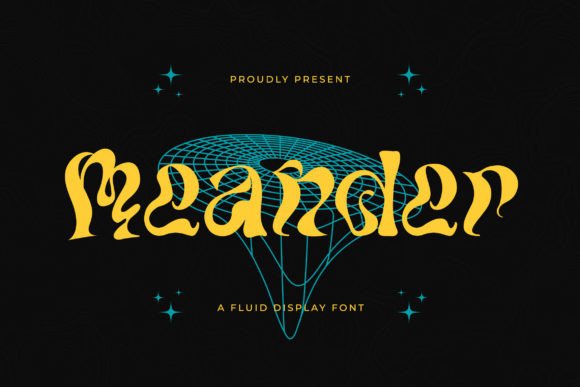
Behold Meander Font, a Liquid Masterpiece Unveiled!
Prepare to be mesmerized by Meander Font, a display font of unrivaled fluidity and charm. This stunning creation by TypeFactory captures the essence of casual elegance, presenting a font that is both down-to-earth and remarkably versatile. With its effortlessly readable characters, Meander Font becomes the star of any context, whether it graces busy backgrounds or stands alone as a captivating headline.
Unleash the Creative Potential Within: Meander Font's Allure
Meander Font is more than just a font; it's an open invitation to unleash your creative genius. Its casual yet sophisticated style empowers you to craft designs that resonate with audiences, leaving a lasting impression. Imagine the possibilities as you weave Meander Font's graceful strokes into your projects, transforming them into visual masterpieces.
A Font Symphony for Every Canvas: Meander Font's Adaptability
Meander Font's versatility knows no bounds. Its inherent adaptability makes it the perfect choice for a myriad of design applications. From captivating posters that demand attention to elegant branding materials that exude professionalism, Meander Font seamlessly blends with your vision. Whether you're crafting digital masterpieces or tangible printed works, this font becomes an integral part of your creative journey.
Monochrome Magic: Meander Font's Mesmerizing Simplicity
In the realm of design, simplicity often holds the key to brilliance. Meander Font embraces this philosophy, offering a monochrome palette that captivates and enchants. Its understated elegance elevates your designs, allowing the font's inherent beauty to take center stage. Prepare to be captivated as Meander Font transforms your creations into timeless works of art, leaving an indelible mark on the hearts and minds of your audience.